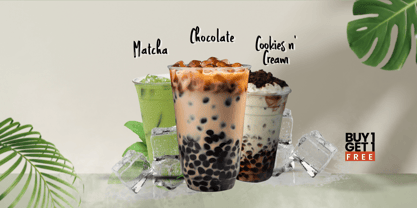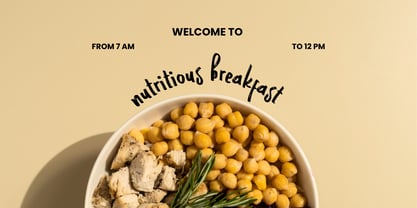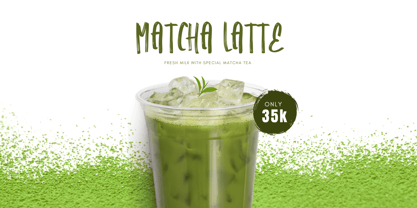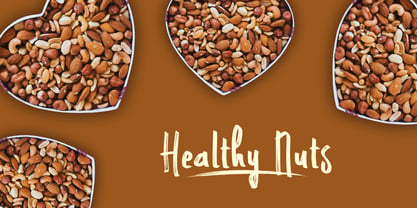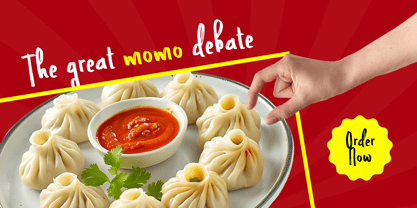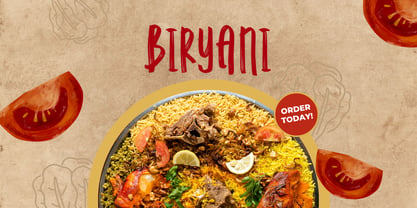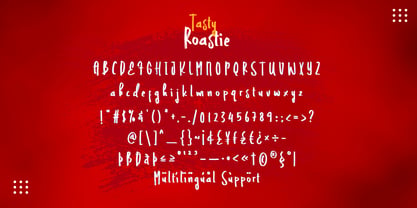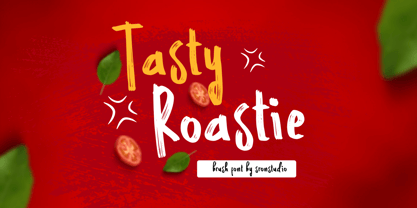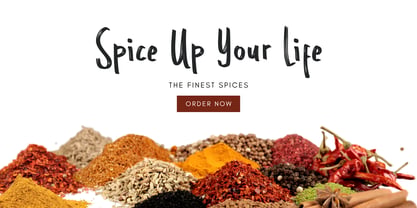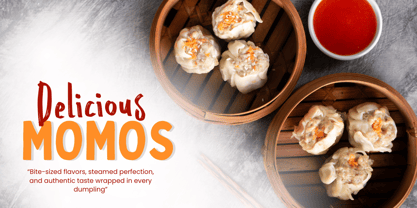
Tasty Roastie
by Sronstudio
The Tasty Roastie Font Family was designed by Muhamad Yusron Billah and published by Sronstudio. Tasty Roastie contains 1 styles. More about this family
Tasty Roastie is a deliciously bold food brush font that brings a flavorful and handmade touch to your designs. With its juicy strokes and playful character, this font is perfect for restaurant branding, food packaging, café menus, social media posts, or any creative project that craves a fresh and appetizing vibe. Each letter feels like it's been brushed with personality — full of warmth, charm, and that homemade feel.
- Uppercase & lowercase characters
- Numerals & punctuation
- PUA encoded for easy access
- Multilingual support
Designers: Muhamad Yusron Billah
Foundry: Sronstudio